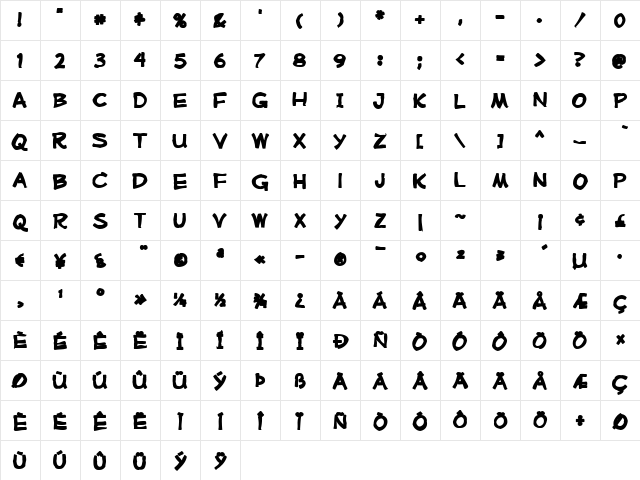
Mufferaw Ink Regular
Design Context for Mufferaw Ink
Mufferaw Ink is a composed and adaptable typeface that performs quietly and consistently across a wide range of design contexts.
Pro Tip: Use Mufferaw Ink in both headline and body roles to test its range before committing to a single application.